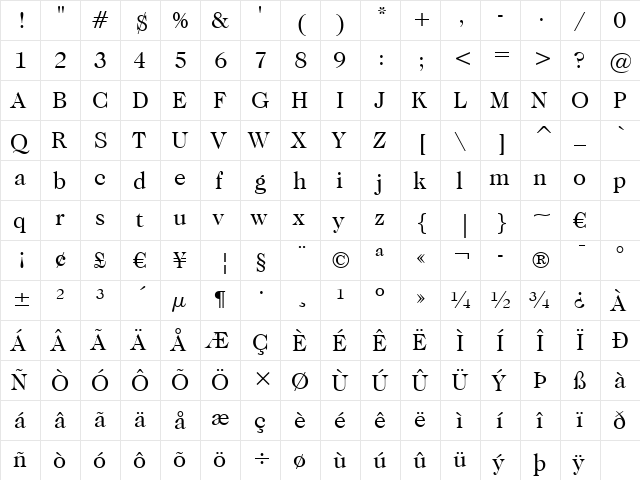
Caslon224 Bk BT Book Font Preview
Caslon224 Bk BT Book
Design Context for Caslon224 Bk BT Typeface
Caslon224 Bk BT is a composed and adaptable typeface that performs quietly and consistently across a wide range of design contexts.